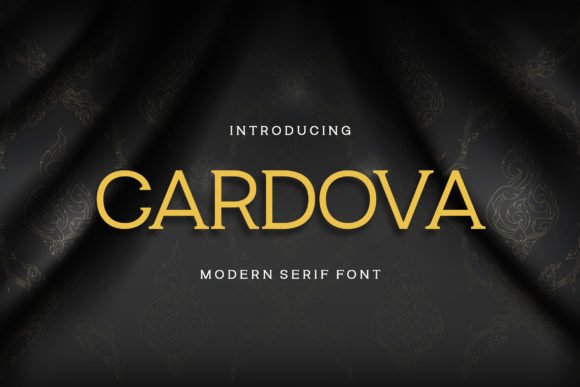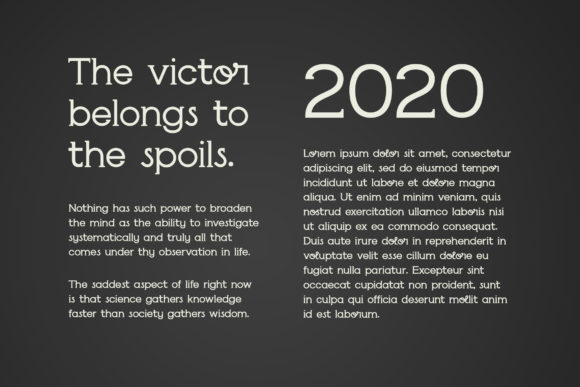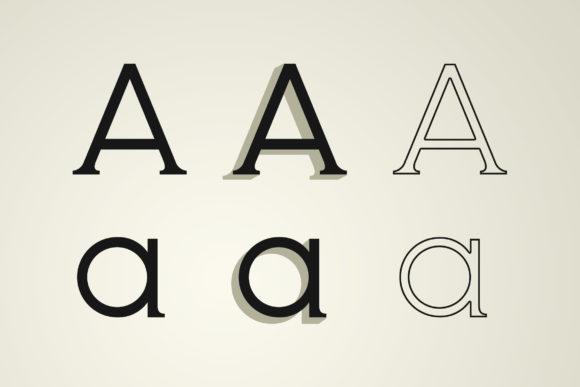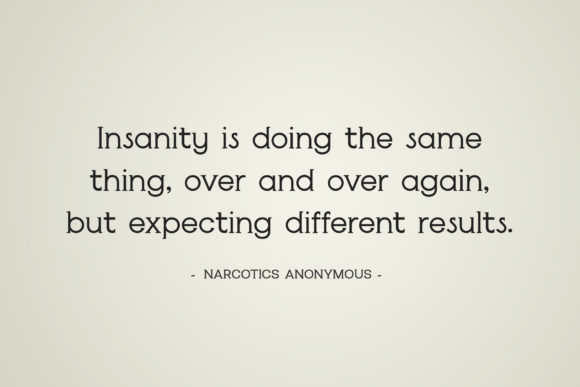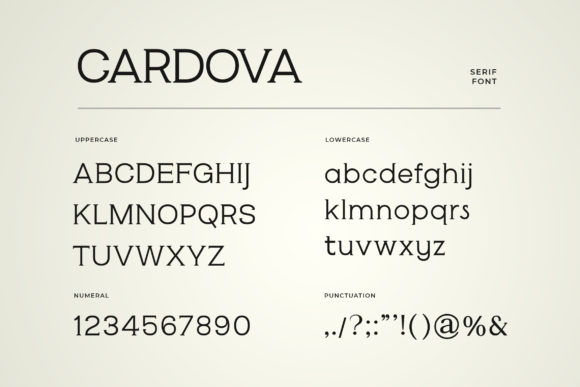
Discover the Perfect Font for Your Next Crafting Project
There’s nothing quite like the feeling of bringing a creative idea to life, whether it’s a handmade card for a loved one or a customized sign for your home office. As you sit at your desk, surrounded by scraps of paper, glue, and paint, the possibilities seem endless. But have you ever felt like something was missing – a way to add a touch of personality to your project that truly makes it stand out?
Enter the Cardova Font, a modern serif font designed specifically for crafting projects that require a personalized look. With its sleek lines and elegant feel, this font is perfect for adding a touch of sophistication to your handmade creations. Whether you’re a seasoned designer or a DIY novice, the Cardova Font is a valuable tool that will help you take your projects to the next level.
Cardova Font Key Features
- Unique Characteristics: The font features a unique blend of modern and vintage elements, with subtle rounded edges and geometric shapes, giving it a distinctive look.
- Scalability: The font is designed to be highly scalable, maintaining its legibility and aesthetic appeal at various font sizes and resolutions.
Designer Review: Cardova Font
Overall, I’m quite impressed with the Cardova Font. Here’s what works well:
- ✨ Unique and modern design that’s perfect for contemporary projects.
- ✨ Excellent legibility, making it easy to read even in smaller font sizes.
- ✨ High versatility, suitable for a wide range of applications, from headings to body text.
- ⚠️ Limited character set, which may not be ideal for projects requiring extensive typing.
- ⚠️ Some users may find the font too modern or trendy, which may not be suitable for more conservative designs.
- ⚠️ Font weights may feel inconsistent at certain sizes, which can be distracting.
Overall, I think the Cardova Font is a great addition to any designer’s toolkit. Its unique design and excellent legibility make it perfect for modern projects. While it may have some limitations, these can be easily worked around with a bit of creative problem-solving.
The Cardova Font is ideal for:
– Creating modern and sleek designs.
– Adding a touch of elegance and sophistication.
– Designing for luxury brands or high-end products.